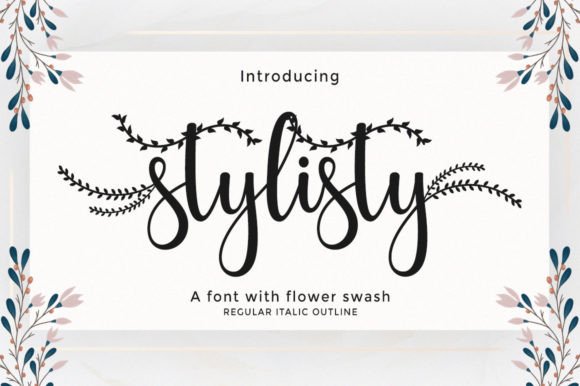
Dive into the world of Stylisty, a script font that captures the essence of nature's delicate beauty. Its flowing lines elegantly intertwine with tiny branches, adding a dash of whimsy and charm. Whether you're crafting fashion branding, designing packaging, or creating editorial masterpieces, Stylisty will elevate your creations with its sophisticated and enchanting presence.
With Stylisty, your designs will blossom into a visual symphony. Its graceful curves mirror the fluidity of nature, while the intricate branch details add a touch of organic elegance. Imagine your fashion brand adorned with Stylisty's graceful script, exuding an air of sophistication and effortless style. Its charm will captivate your audience, leaving a lasting impression that speaks volumes about your brand's identity.
Step into the world of Stylisty and let your imagination soar. Its versatility knows no bounds, making it the perfect companion for a myriad of creative endeavors. Whether you're crafting packaging that tells a story or designing editorial layouts that capture the essence of nature, Stylisty will transform your designs into masterpieces that resonate with your audience.
With Stylisty, you're not just downloading a font; you're embarking on a creative journey where nature's beauty and your artistic vision harmoniously intertwine. Its intricate details and delicate flow will infuse your projects with a sense of magic and allure, leaving your audience captivated and inspired.
So, embrace the beauty of nature and let Stylisty guide you towards creative excellence. Its elegance and charm will elevate your designs, leaving a lasting impression that tells a story of artistry and inspiration.